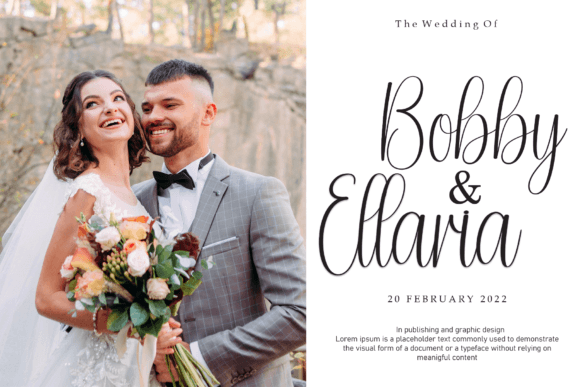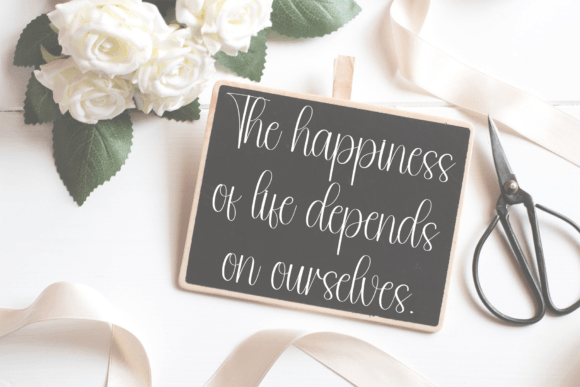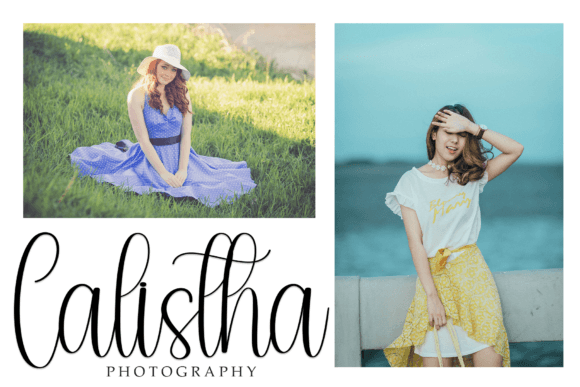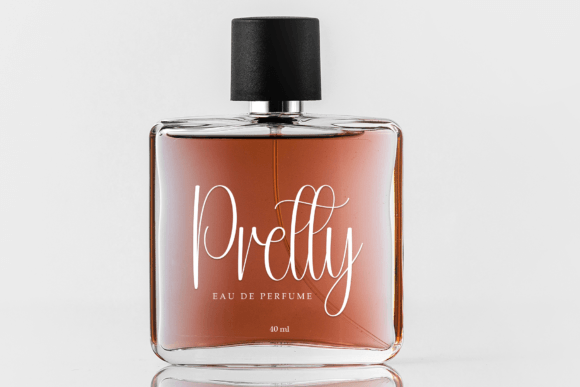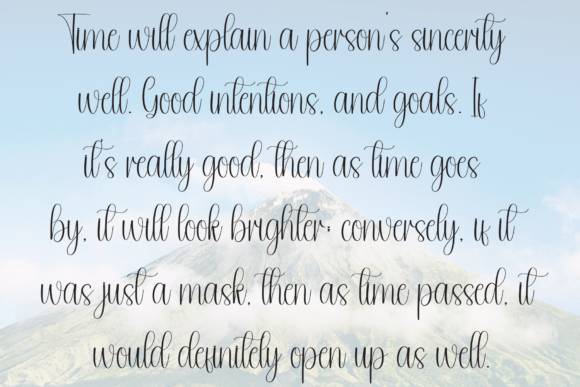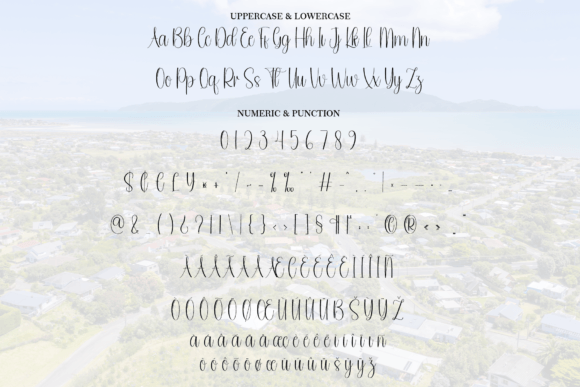
Introduction to County Font
County is a sweet and friendly handwritten font.
Cute and fun, this font is ideal for writing wedding invitations, cards, or any other design that might need a lovely touch .
Key Features of County Font